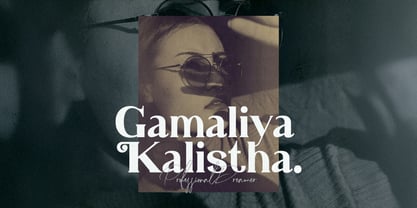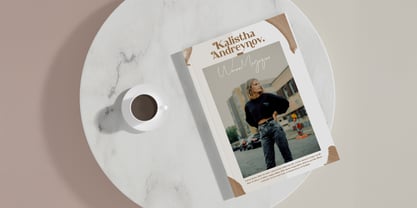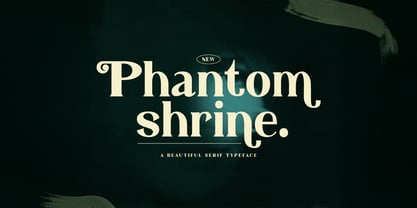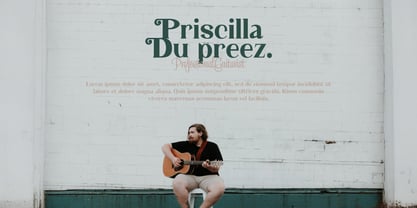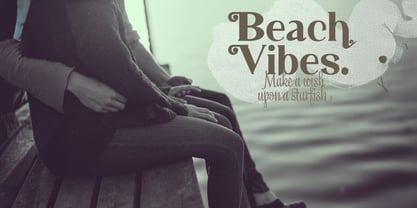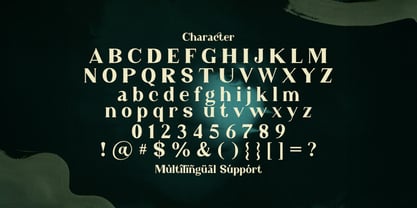
Phantom Shrine
by Stringlabs Creative Studio
The Phantom Shrine Font Family was designed by Virgiawan Listanto and published by Stringlabs Creative Studio. Phantom Shrine contains 1 styles. More about this family
Phantom Shrine is a stunning and elegant serif font that combines beauty with a touch of mystery. With its graceful curves, delicate serifs, and timeless appeal, this font effortlessly brings an air of sophistication and refinement to any design. Ideal for luxury branding, high-end editorial projects, and creative endeavors, Phantom Shrine is a versatile font that stands out with its unique character and attention to detail.
Designers: Virgiawan Listanto
Foundry: Stringlabs Creative Studio